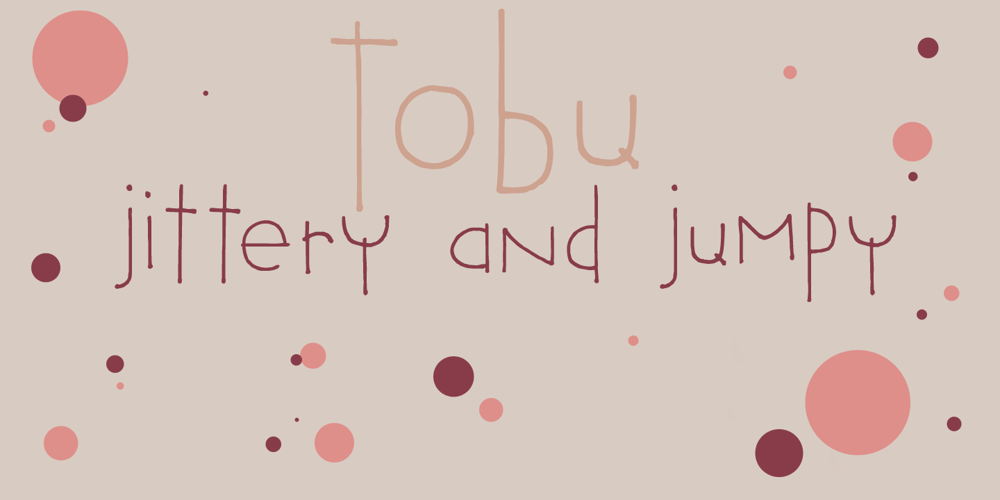
Tobu Font Family was designed by David Kerkhoff and published by Hanoded. Tobu contains 1 styles and family package options. Tobu means ‘to jump’ in Japanese. I came across a haiku by Matsuo Bashô wich reads: The old pond… a frog jumps in… the sound of water (Furu ike ya… kawazu tobikomu… mizu no oto). The font is named Tobu because of its jumpy character: it doesn’t have a real baseline, which makes it playful and fun to use. Tobu comes with a pond full of diacritics.